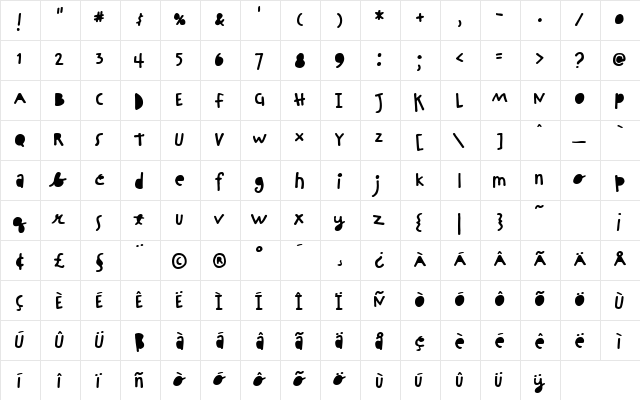
Chinchilla Black Regular
Design Context for Chinchilla Black Typeface
Chinchilla Black is a composed and adaptable typeface that performs quietly and consistently across a wide range of design contexts.
Pro Tip: Use Chinchilla Black in both headline and body roles to test its range before committing to a single application.